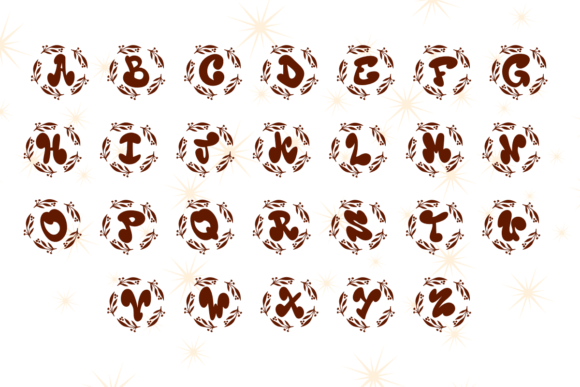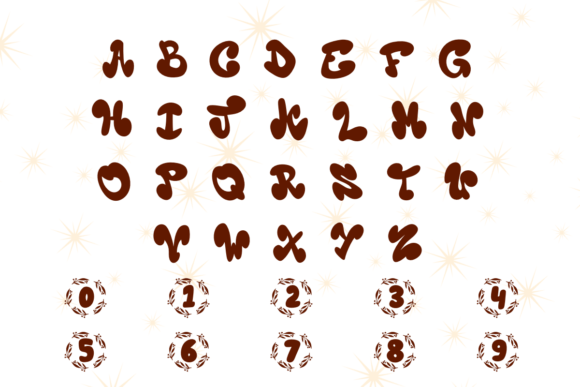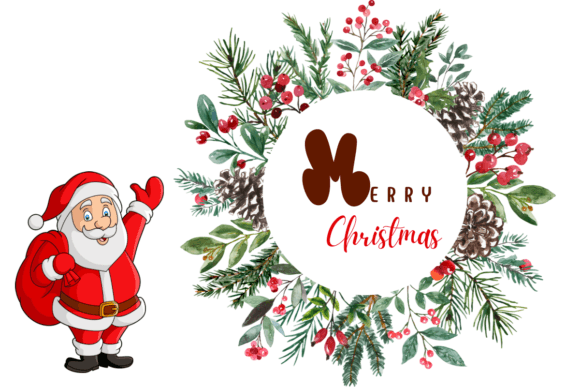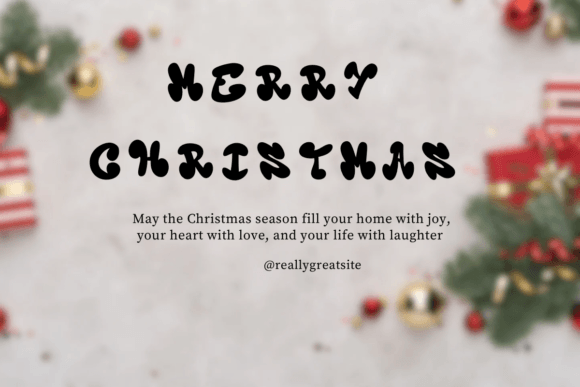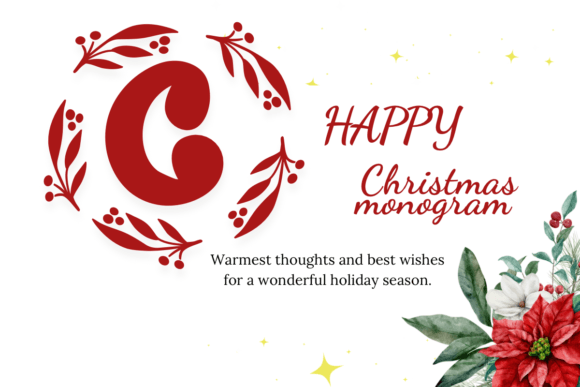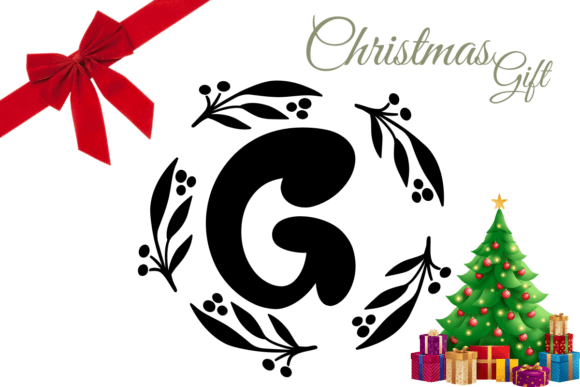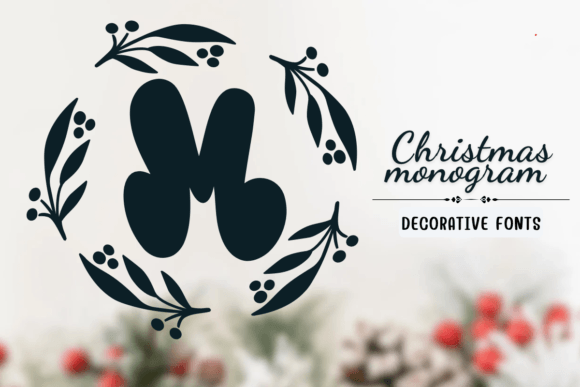
Christmas Monogram Font: Add a Festive Touch to Your Designs
Are you looking for a font that can add a touch of festivity to your designs? Look no further than the Christmas Monogram Font! This decorative font is perfect for the holiday season and can be used for a variety of projects, from taking notes to creating greeting cards and more.
What is Christmas Monogram Font?
Christmas Monogram Font is a decorative font that features elegant and intricate designs, perfect for adding a touch of Christmas magic to your projects. The font is designed to resemble traditional Christmas monograms, with a vintage feel that will transport you back to the nostalgic days of Christmas past.
Uses of Christmas Monogram Font
Christmas Monogram Font is a versatile font that can be used for a wide range of projects, including:
• Taking notes: Add a festive touch to your notes and journals with Christmas Monogram Font.
• Writing a diary: Make your diary entries feel like a special holiday treat with this beautiful font.
• Creating greeting cards: Impress your friends and family with beautifully designed Christmas cards featuring Christmas Monogram Font.
• Designing banners: Create eye-catching banners for your website, social media, or events with this festive font.
• Content creation: Add a touch of Christmas cheer to your blog posts, articles, and other content with Christmas Monogram Font.
• Mugs and water bottles: Create personalized gifts for your loved ones with Christmas Monogram Font.
• Cards and invitations: Make your cards and invitations feel extra special with this beautiful font.
• Shirts and apparel: Design festive holiday shirts and apparel with Christmas Monogram Font.
• Stationery: Add a touch of elegance to your stationery with this beautiful font.
• Social media posts: Make your social media posts stand out with Christmas Monogram Font.
Why Choose Christmas Monogram Font?
There are many reasons why Christmas Monogram Font is the perfect choice for your holiday projects:
• Unique and festive: This font is unlike any other, with its unique and festive design that’s sure to capture the spirit of Christmas.
• Elegant and sophisticated: Christmas Monogram Font features elegant and sophisticated designs that will add a touch of class to your projects.
• Versatile: Christmas Monogram Font can be used for a wide range of projects, from personal to commercial.
Tips for Using Christmas Monogram Font
Here are a few tips for using Christmas Monogram Font:
• Experiment with different colors: Try out different colors and combinations to find the perfect look for your project.
• Mix and match: Combine Christmas Monogram Font with other fonts to create a unique and eye-catching design.
• Pay attention to spacing: Make sure to adjust the spacing between letters and words to create a clean and elegant design.
• Use it sparingly: Use Christmas Monogram Font sparingly to create a sense of elegance and sophistication.
Christmas Monogram Font is a beautiful and versatile font that’s perfect for adding a touch of festivity to your designs. With its elegant and intricate designs, this font is sure to capture the spirit of Christmas and make your projects stand out. Whether you’re a designer, crafter, or simply someone who loves the holiday season, Christmas Monogram Font is a must-have font for your collection.
Get Creative with Christmas Monogram Font!